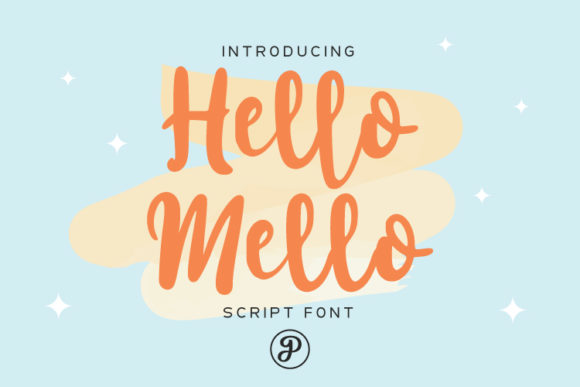
Hello Mello Font: A Cursive Masterpiece for Timeless Designs
In a world of digital monotony, your designs deserve a touch of elegance, a whisper of charm, a breath of life. Enter Hello Mello Font—a cursive script so captivating, it will transform your creative visions into timeless masterpieces.
Feel the rhythm of Hello Mello's flowing lines, the grace of its curves, the harmony of its letterforms. Each character dances across the page, telling a tale of artistry and passion. With Hello Mello, your designs won't just speak—they'll sing.
Craft eye-catching logos that demand attention, branding that resonates with your audience, and quotes that inspire and uplift. Hello Mello's versatility knows no bounds, making it the perfect choice for a myriad of projects:
- Unleash your creativity in designing wedding invitations, greeting cards, and social media posts that exude warmth and personality.
- Create stunning posters, flyers, and brochures that leave a lasting impression, drawing eyes and captivating hearts.
- Elevate your digital marketing game with website designs that captivate visitors and boost conversions.
- Transform ordinary packaging into works of art, adding a touch of sophistication and charm to your products.
Hello Mello is more than just a font; it's an experience. It's a journey into the realm of beauty, where every letter tells a story and every design becomes a masterpiece. Embrace the allure of Hello Mello and let your creativity soar like never before.